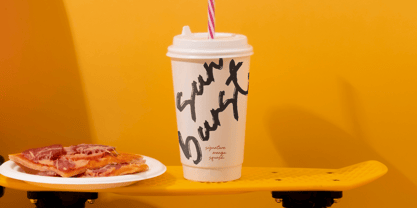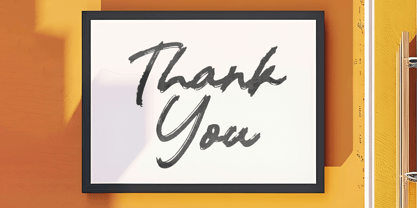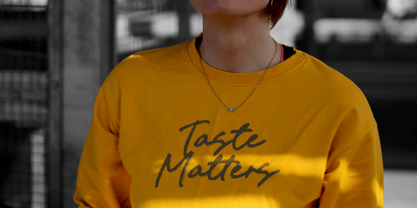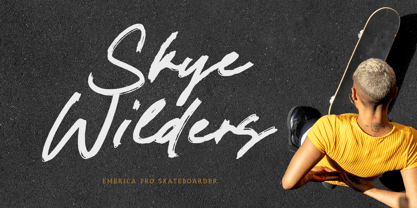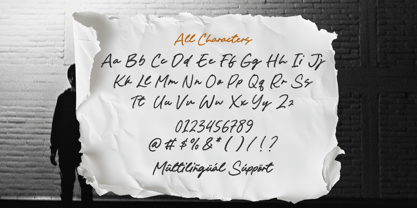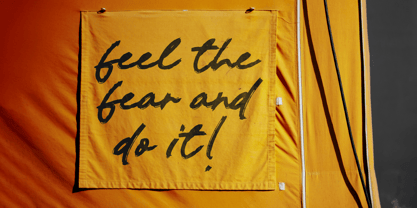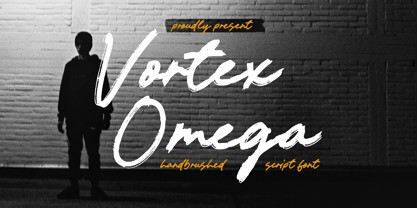
Vortex Omega
by Timurtype
The Vortex Omega Font Family was designed by Ibnu Nur Rahman and published by Timurtype. Vortex Omega contains 1 styles. More about this family
Introduced by Timurtype Studio! Vortex Omega is a Handbrushed Script Font This font is a dynamic, hand-brushed script typeface that captures the lively energy of real brush strokes. With its fluid, sweeping curves and slightly rugged texture, it offers a bold yet expressive character—perfect for logos, packaging, posters, social-media headers, and any design looking for a handcrafted, artistic feel. Think of it as merging the spontaneity of hand lettering with the polish of a professional script. Vortex Omega Font also supports multilingualism Enhance your designs with our original fonts, feel free to comment or provide feedback, Enjoy the fonts 😊 Thank You
Designers: Ibnu Nur Rahman
Foundry: Timurtype